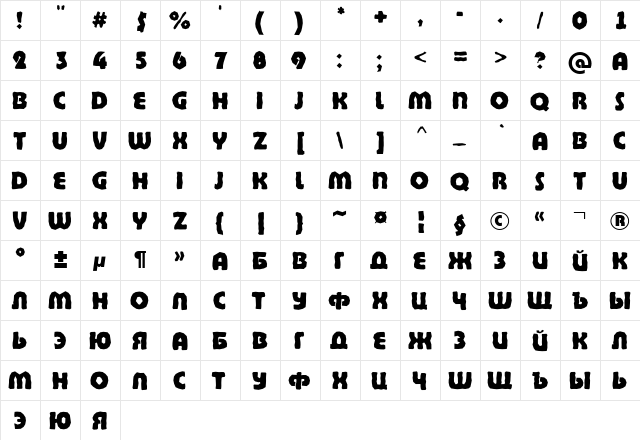
a_BighausTitulBrk ExtraBold Font Preview
a_BighausTitulBrk ExtraBold
Design Context for a_BighausTitulBrk Typeface
a_BighausTitulBrk takes a measured approach to typography — its balanced proportions and neutral character make it a reliable workhorse for both digital and print work. Its bold stroke weight gives it real presence on the page.